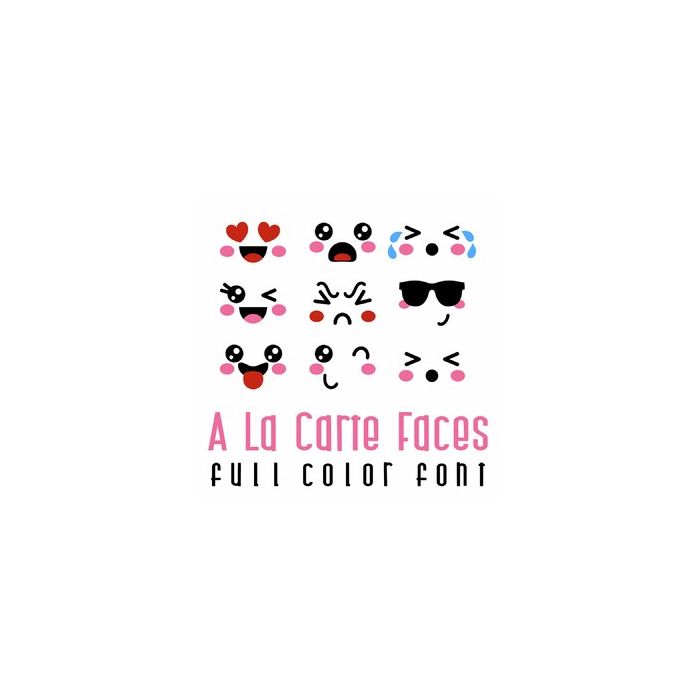
This adorable full color doodlebat font features 26 cartoon faces. Perfect for cards, crafts, gifts, decor, scrap book pages, planner stickers and more!